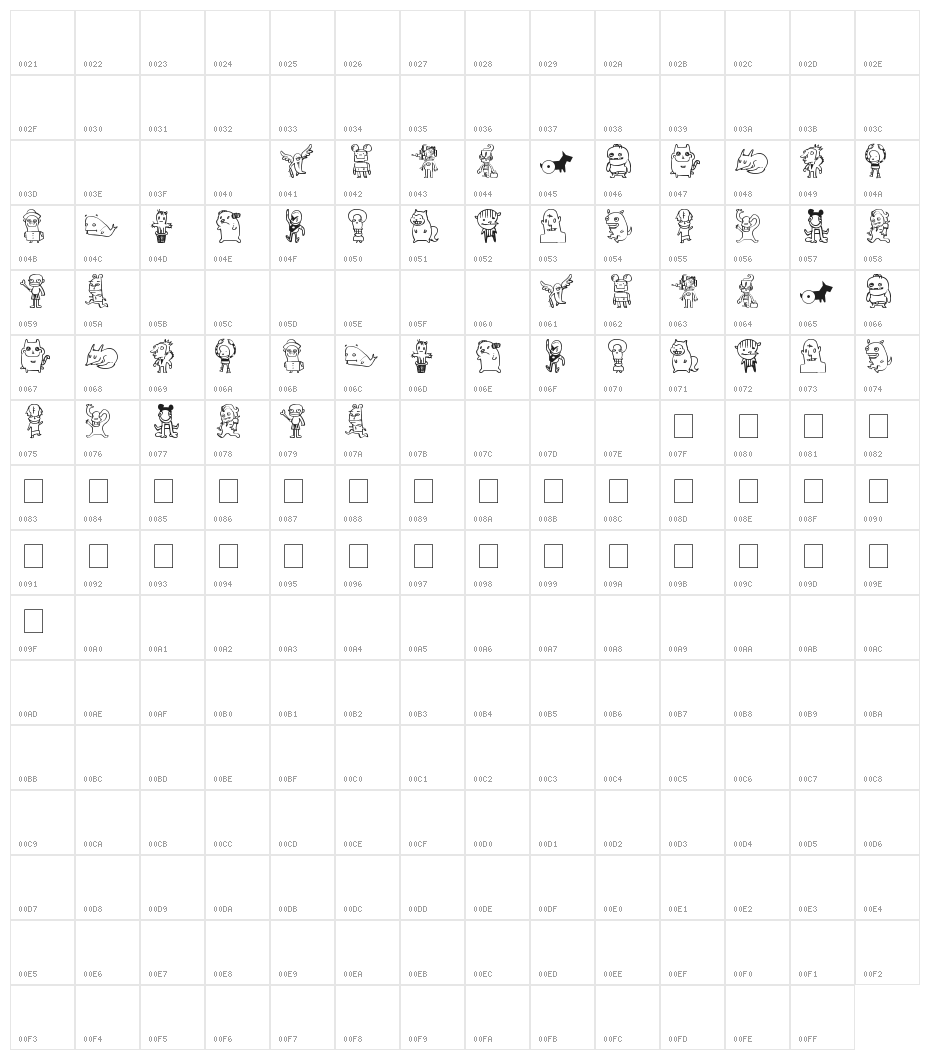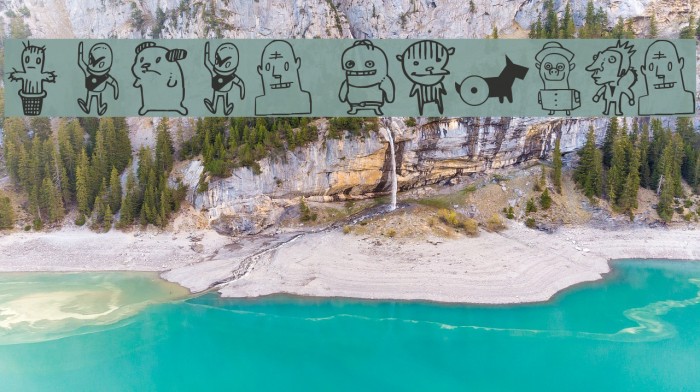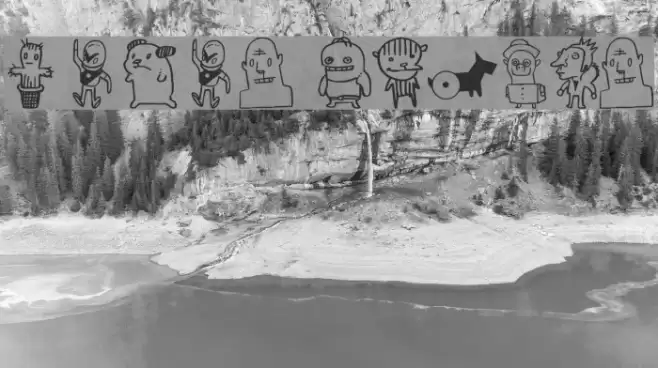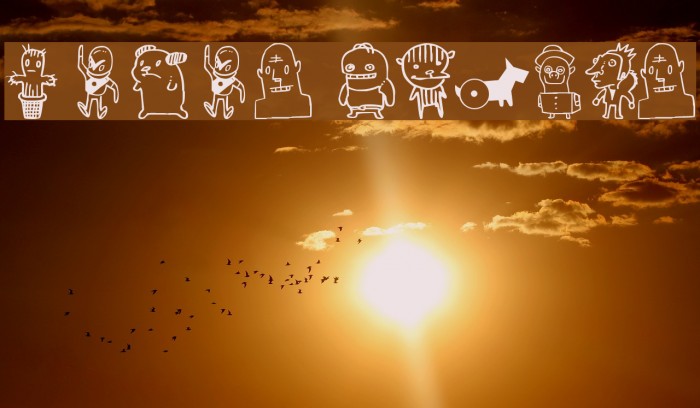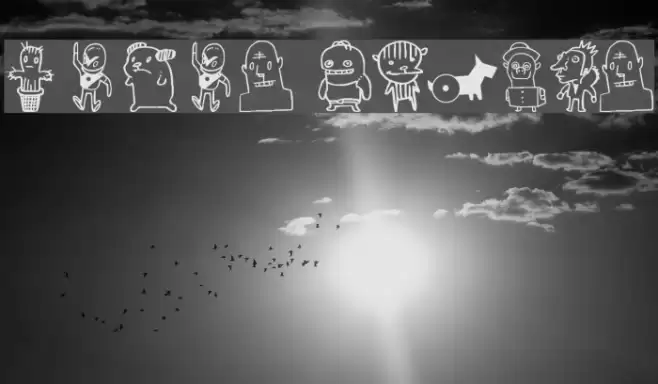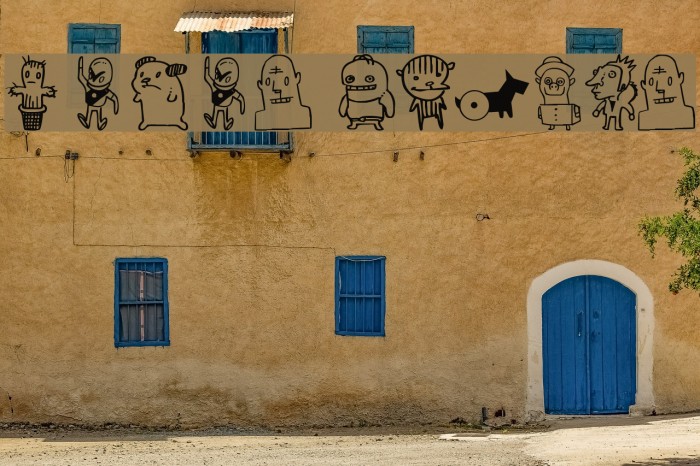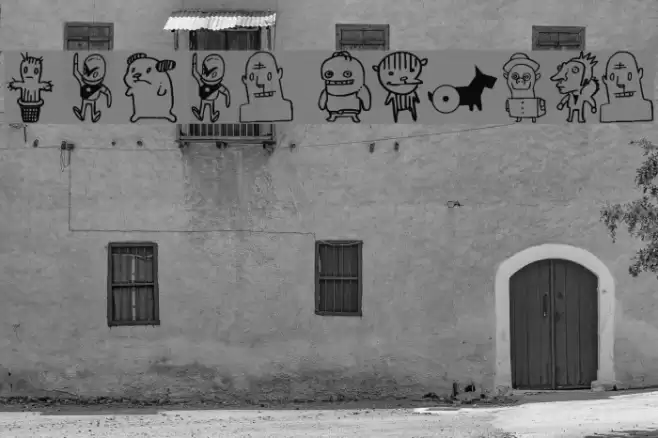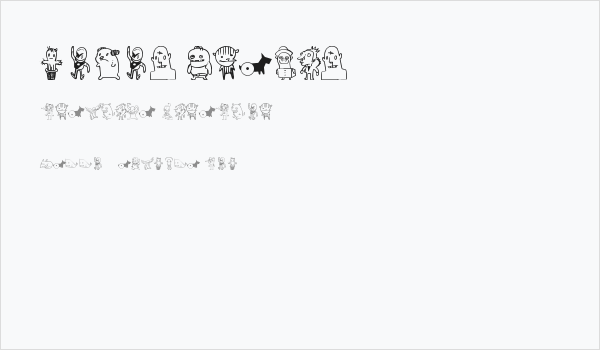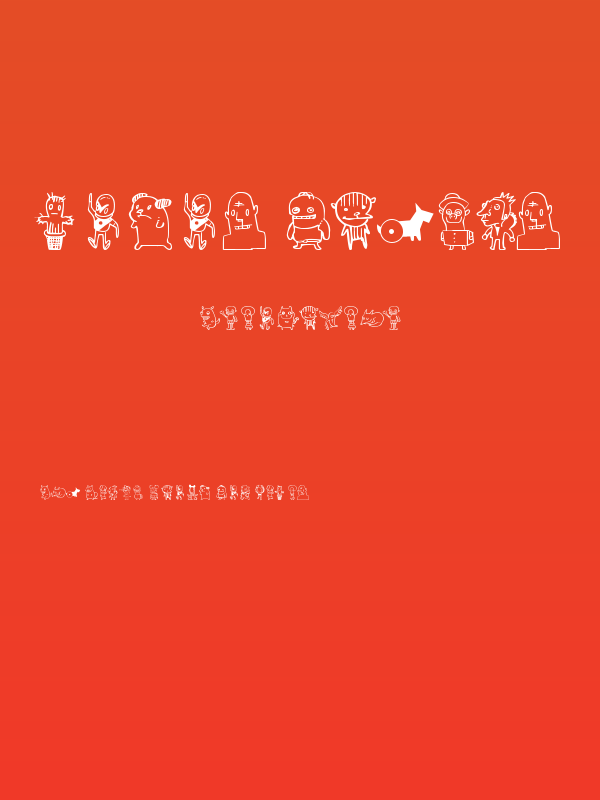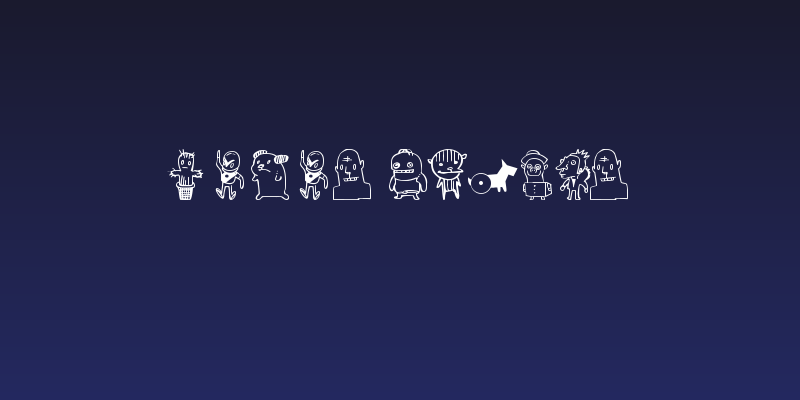
monos frekis Font
monos frekis Description
A highly decorative and whimsical font composed entirely of unique cartoon characters and creatures, each glyph represented by a distinct hand-drawn illustration rather than traditional letterforms.
| Overall Style | Decorative, Whimsical, Playful |
| Use Case | Logos, Posters, Children's materials, Art projects |
| Proposed Projects | Children's books, party invitations, posters, playful branding, creative art projects. |